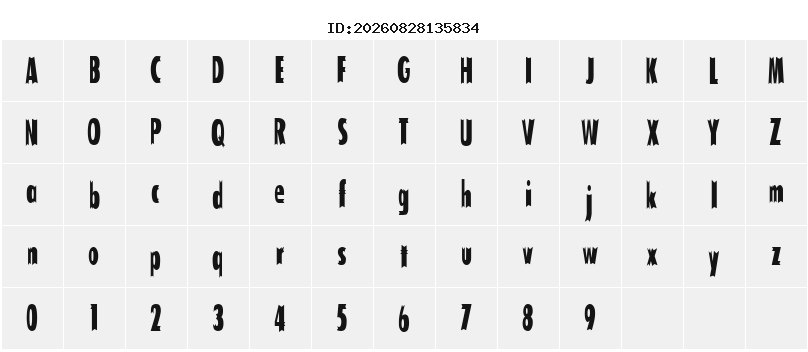
• Font Name: Tofu
• Full Font Name: Tofu Condensed
About Tofu.ttf
Tofu.ttf is a modern, elegant sans-serif font designed for ultimate readability and visual harmony. Perfect for branding, headlines, web design, and print materials.